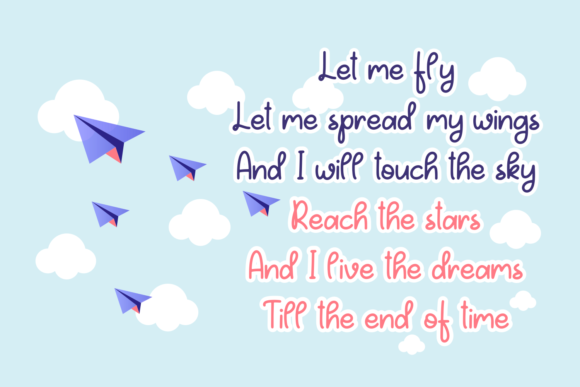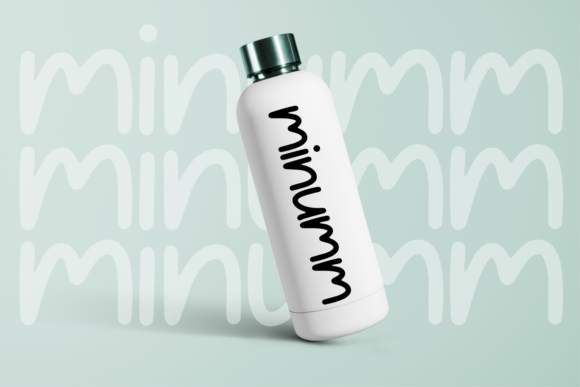
What the Craft Font
db-ku.com - Script & Handwritten -- What the Craft is a fancy and elegant handcrafted font created to impress your audience and make your branding shine.